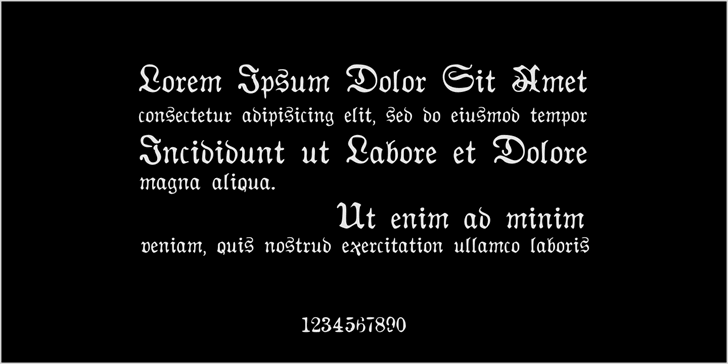
Free AuldMagick Font
Featuring a free auldmagick font. Font Space has created this amazing and beautiful free font. This is absolutely fancy font so you can easily make world-class designs.